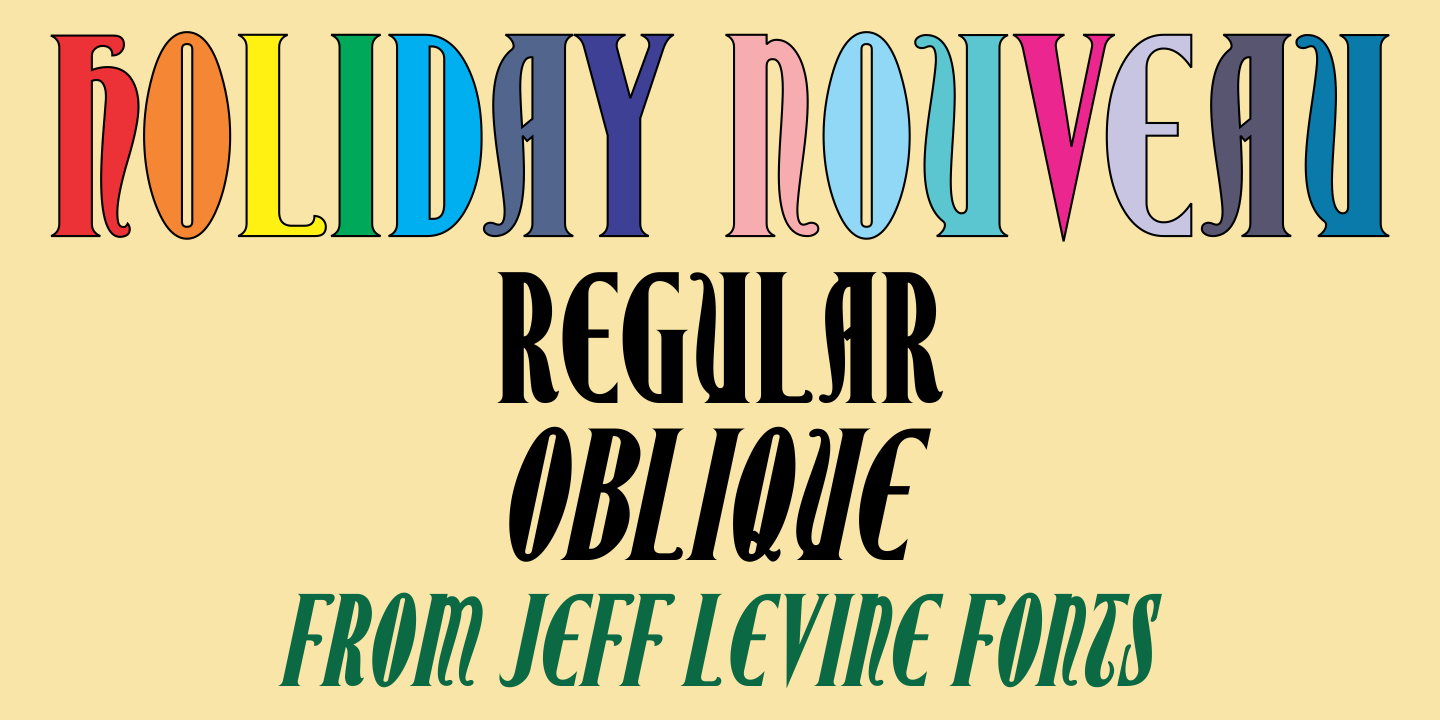
This festive typeface is perfect for holiday greeting cards, Christmas packaging, seasonal marketing campaigns, New Year celebrations, winter wonderland events, holiday party invitations, festive restaurant menus, seasonal retail promotions, vacation resort branding, travel agency materials, holiday decorations, gift wrapping designs, and celebratory event planning. The font's ornate design makes it ideal for projects that capture the joy and elegance of special occasions and festive celebrations.
Holiday Nouveau JNL Font is exciting because it blends Victorian holiday tradition with Art Nouveau elegance through its decorative letterforms and celebratory character structure. The font's ornamental flourishes and festive proportions create an atmosphere of warmth, joy, and sophisticated celebration, making it perfect for brands that want to convey holiday magic, seasonal charm, and memorable experiences. Its distinctive style ensures instant recognition while maintaining excellent readability across various festive applications.
The Holiday Nouveau JNL Font family includes seasonal variations: Light Snowfall, Regular Celebration, Medium Festivity, Bold Jubilation, and Black Merriment weights, each available in standard and ornamental styles. Special holiday editions feature decorative borders, seasonal alternates, and celebratory ligatures that enhance the font's festive appeal, providing designers with comprehensive tools for creating truly magical holiday typography.
Celebrate in style with Holiday Nouveau JNL Font Free Download – a typeface that captures the essence of joyful celebrations and seasonal magic. Whether you're creating holiday marketing campaigns, festive event materials, or seasonal branding projects, this font delivers the ornate beauty and celebratory spirit your projects need while ensuring exceptional performance and timeless holiday charm across all festive applications and seasonal communications.